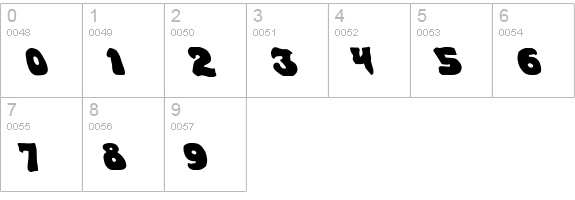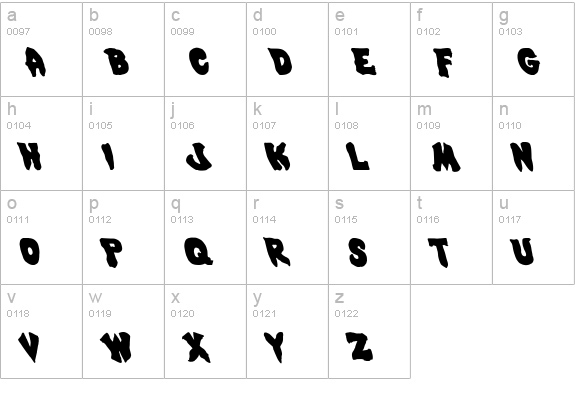
Mystic Singler Leftalic font is a captivating and enigmatic typeface that exudes a sense of mystery and intrigue. Its elegant and flowing design makes it perfect for adding a touch of mysticism to your projects. The slanted, italicized characters of Mystic Singler Leftalic give a sense of movement and dynamism, making it ideal for titles, headlines, and other eye-catching text. This unique font is not only visually stunning but also versatile, suitable for a range of design applications. Whether you're working on branding, print materials, web design, or any other creative project, Mystic Singler Leftalic will help you stand out from the crowd. The best part? Mystic Singler Leftalic is completely free to download at FontsMarket.com. So why wait? Add a touch of magic to your designs with this captivating font today!